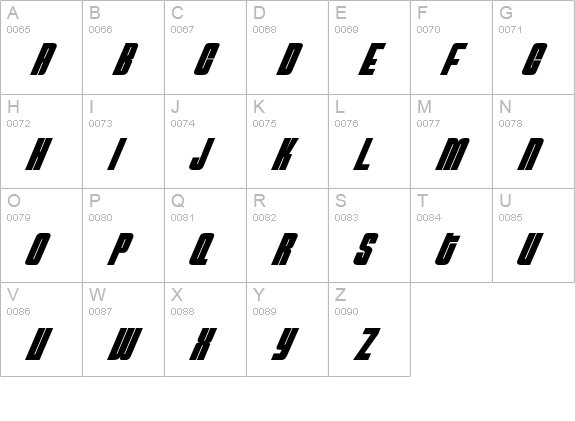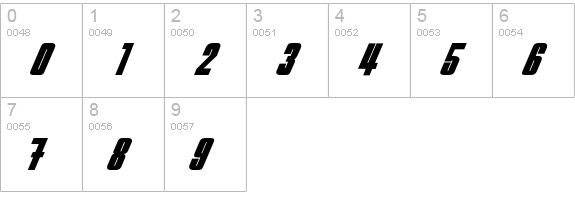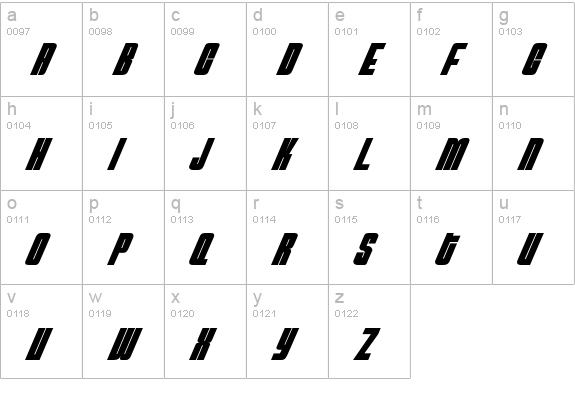
Introducing NeutronBomb font, a dynamic and modern typeface perfect for making a bold statement in your designs. This font features sharp edges and futuristic vibes, making it ideal for creating eye-catching headlines, logos, and branding materials. NeutronBomb strikes the perfect balance between sleek sophistication and edgy flair, giving your projects a contemporary and impactful look. Best of all, NeutronBomb font is available for free download at FontsMarket.com! Whether you're a designer looking to add a fresh touch to your creations or a business owner seeking a standout visual identity, NeutronBomb offers versatility and style that will set your work apart. Embrace the power of NeutronBomb font and elevate your design game today!